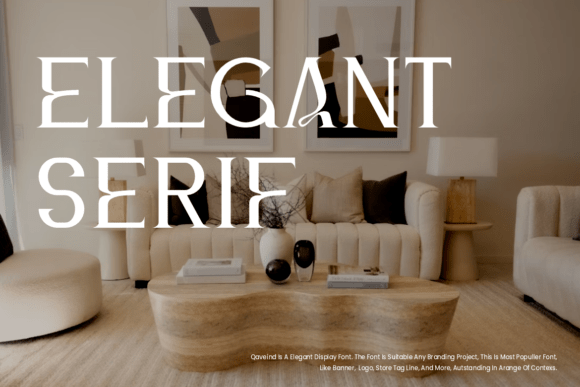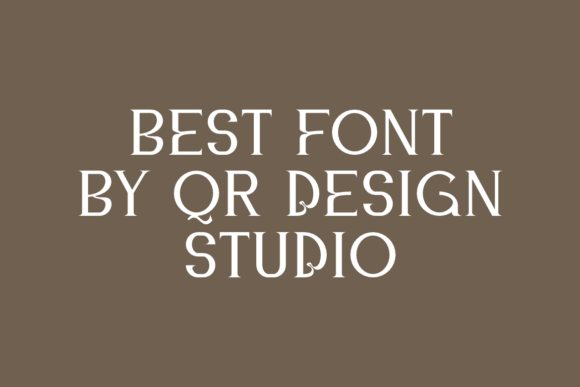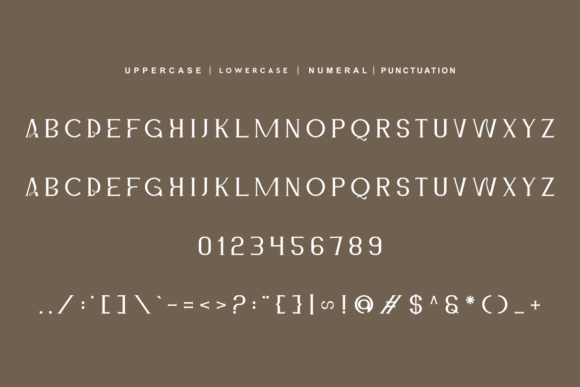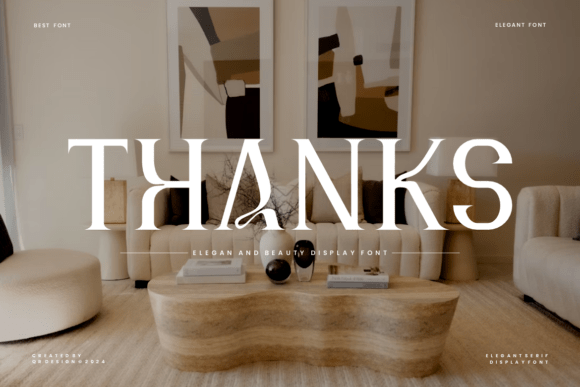
Introduction to Qaveind Font
As designers, we’ve all been there – staring at a blank page, searching for the perfect font to elevate our creative project. The moment of discovery is like a breath of fresh air, and that’s exactly what happens when you lay eyes on the Qaveind Font. This luxurious serif display font is a game-changer, boasting elegant curves and high-contrast strokes that demand attention.
Whether you’re crafting a fashion brand, designing magazine titles, or creating wedding stationery, Qaveind Font is the perfect addition to your design resource arsenal. Its timeless sophistication is unmatched, making it a valuable asset for any creative project. And the best part? You can download it for free, making it an accessible high-quality design resource for designers of all levels.
With its transparent background and versatility, Qaveind Font is the ultimate tool for designers looking to make a lasting impression. In this article, we’ll delve into the world of Qaveind Font and explore its many uses, from upscale packaging to fashion branding.
Key Features of Qaveind Font
- High-quality font with a transparent background, ideal for creative projects that require a clean and modern design.
- Features a unique and stylish design, making it perfect for use in branding, logos, and other creative projects.
Honest Review: Qaveind Font
I recently came across the Qaveind Font, and I was excited to give it a try. As a designer, I’m always on the lookout for high-quality design resources to elevate my creative projects.
One of the things that works well for the Qaveind Font is its sleek and modern aesthetic. It’s perfect for anyone looking to add a touch of sophistication to their design. The font is also incredibly versatile, making it suitable for a wide range of creative projects, from logos to brochures.
What I like about the Qaveind Font is:
- Its modern and sleek aesthetic
- Its versatility in design projects
- Limited character set (may not be suitable for long-form content)
- Not as many language support options as some other fonts
Overall, I’m impressed with the Qaveind Font. While it may have some limitations, its high-quality design and versatility make it a great addition to any designer’s toolkit. I’d definitely recommend it for any creative project where a modern and sleek look is desired. ⚠️ However, be aware of the limitations mentioned above. ✨
Getting the Most Out of Qaveind Font
To get the most out of the Qaveind Font, use it in conjunction with other design elements to create a cohesive and visually appealing design.